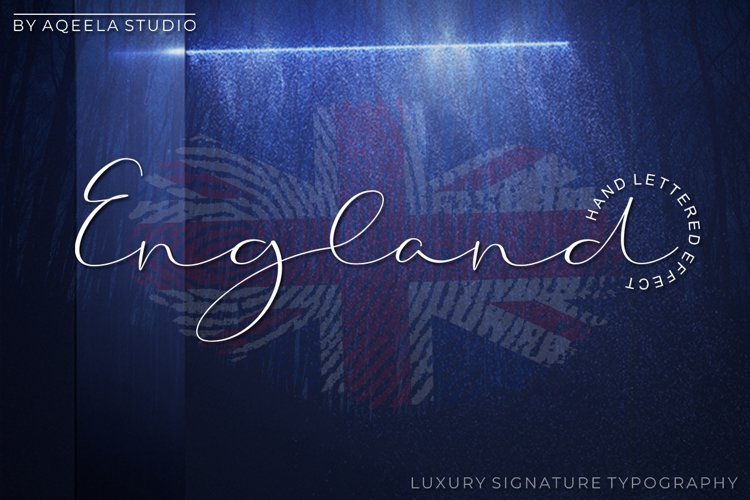
You know your initial name tag won't look good if you use sans serif so we bring you here to see something fresh, beautiful and meaningful. Introduce the Signature with a distinctive touch to your perfect design.